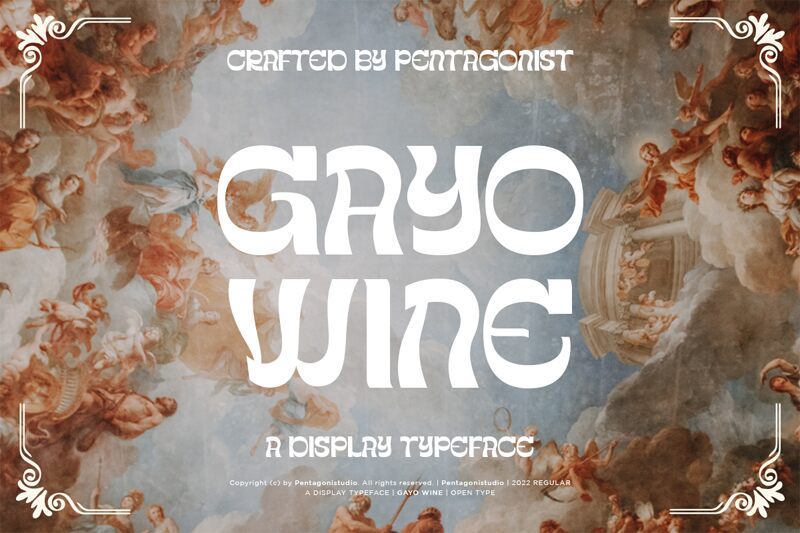
Gayo Wine Outline, a captivating display font crafted by Pentagonistudio, exudes a delightfully groovy and bold aesthetic. This outlined typeface masterfully blends modern elegance with a touch of retro charm, captivating the eye with its unique character. The bold strokes and playful curves create a visually striking impression, making it an exceptional choice for a wide range of design projects.
This versatile font lends itself beautifully to branding, packaging, and advertising applications, where its distinctive personality can truly shine. Gayo Wine Outline's adaptability allows it to seamlessly transition between bold headlines, eye-catching logos, and enticing product labeling, ensuring a cohesive and memorable visual experience across various mediums.